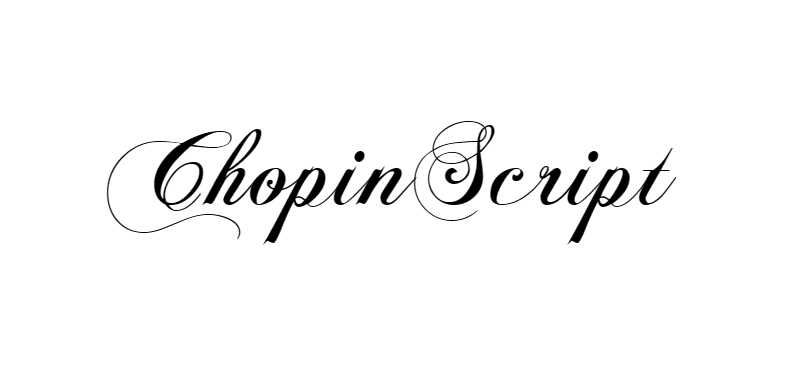
Chopin Script Font
Chopin Script
Chopin Script is a calligraphy font. The letters have the smooth movement of real pen lettering, which is why even a single name looks special in it. It's a free download, and you can try it with your own text in the preview above first.
Chopin Script covers the full alphabet in upper and lowercase, plus all ten numbers, so you can set names, dates and prices without switching fonts. Everyday marks like &, !, ? and @ are there too. Thanks to its accented letters, it also works for French and Italian, not just English.
Think of Chopin Script for wedding invitations, certificates and elegant quotes. Script fonts read best in short bursts, so keep it to names, titles and one-line quotes. Skip all caps: script capitals are drawn to start a word, not to fill one.
Yes. Chopin Script includes the accented letters needed for French and Italian, so it works for more than just English.